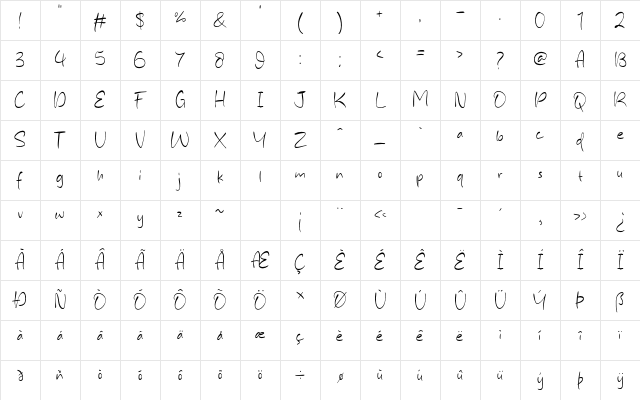
Omantha Signature Regular Free Font
Omantha Signature Regular
Designer: MJType (Muhamad Junaid) www.mjtype.com
Design Context for Omantha Signature
Omantha Signature is a composed and adaptable typeface that performs quietly and consistently across a wide range of design contexts.